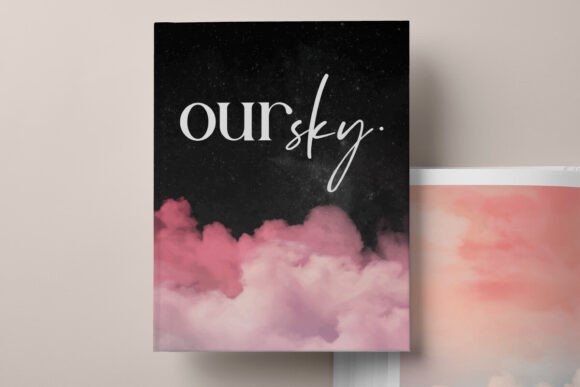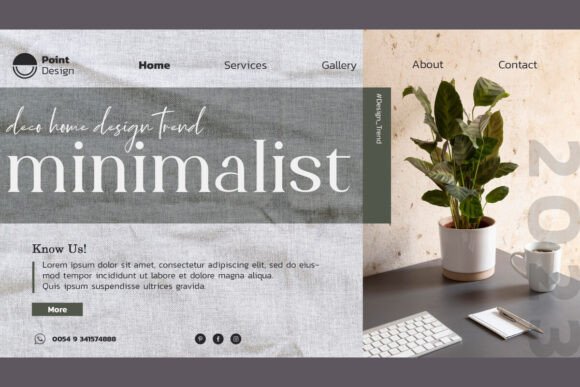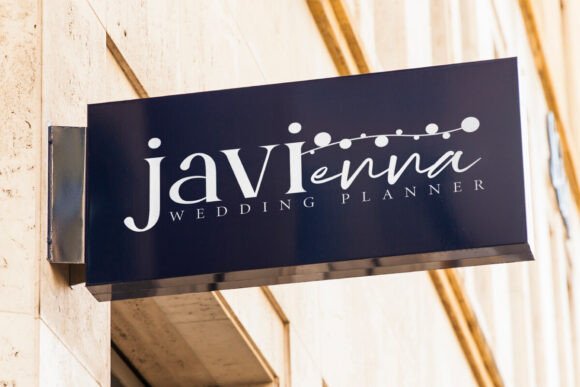
Introduction to Our Sky Font
Our Sky Font is a creative combination font with a stylish and elegant look.
This font has two different character types: Serif for uppercase and Handwritten for lowercase It will suit many designs, such as cover, custom design, invitation, label, product packaging, poster, quote, signage, stationery, website, and more.
Our Sky Font offers exceptional quality and versatility, making it a valuable addition to your design toolkit. Whether you’re creating for personal projects or commercial use, Our Sky Font delivers professional results.